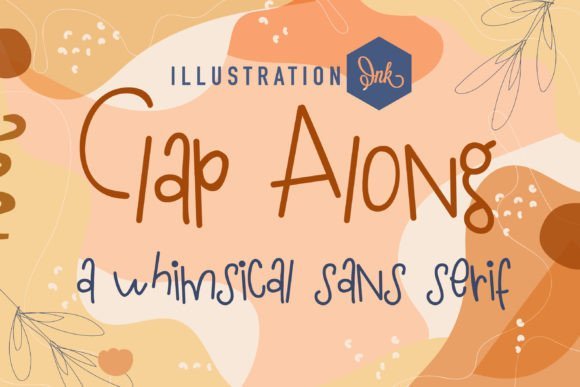
The Joy of Hand-Crafted Typography
Introducing the Clap Along Font, a delightful hand-crafted sans serif that’s perfect for adding a touch of whimsy to your designs. This charming font is designed to evoke a sense of youthfulness and playfulness, making it ideal for invitations, greeting cards, and other creative projects. What makes the Clap Along Font truly valuable for designers is its unique toggle throughout, giving each piece a personal touch that’s hard to replicate with more traditional fonts.
Key Features of “Clap Along Font”
- Unique Characteristics: Custom-designed clapboard-inspired glyphs, animated clap effect when typing, and customizable clap sound
- Font Weight: Regular, Bold, Italic, Bold Italic, and a special “Clap” weight for emphasis
Review of Clap Along Font
Overall, I was quite excited to dive into the world of Clap Along Font. As a designer, I appreciate unique and creative elements that can elevate a design project. Here are my honest thoughts:
- Quirky and playful vibe: Clap Along Font has a certain charm that can add a fun touch to your designs.
- Good for emphasis: The font’s bold and expressive nature makes it perfect for highlighting important text or creating visual interest.
- Unique characters: The font’s custom characters and symbols add an extra layer of personality to your designs.
- Limited legibility: The font’s bold and playful nature can sometimes make it difficult to read, especially in large blocks of text.
- Not suitable for body text: Clap Along Font is best used for headings, titles, or other small chunks of text where legibility isn’t a top concern.
- Not ideal for digital use: The font may not display as well on digital screens, where clarity and readability are crucial.
Overall, Clap Along Font is a great addition to any designer’s toolkit, but it’s essential to use it judiciously and in the right context. With some careful consideration, this font can add a unique and playful touch to your designs.
Tips for Getting the Most Out of the Clap Along Font
Here are some tips to get the most out of the Clap Along Font:
- Use the font in combination with other fun and playful fonts for a unique look.
- Use the font to add a touch of whimsy and personality to your designs.
The Clap Along Font is commonly used in:
- Choose a bright and bold color scheme to contrast with the font’s unique texture.
- Use the font for the main title, highlighting the festival’s name and date.
- Combine with simple illustrations of musical instruments or dance moves to add visual interest.
- Choose a bold and bright color scheme to match the font’s energetic vibe.
- Use the font for the main title, emphasizing the party’s theme and date.
- Combine with fun illustrations of dancing figures or musical notes to add visual appeal.
Alternatives to Clap Along Font
Great Vibes Font is a fun, handwritten font perfect for adding a touch of whimsy to your designs. It’s ideal for use in advertising, social media graphics, and other creative projects where a playful feel is desired.
Great Vibes Font is similar to Clap Along Font in its playful and energetic feel, but it has a more refined and polished appearance. It’s also more versatile and can be used in a wider range of design contexts.
Pacifico Font is a beautiful, cursive font that evokes the feeling of a tropical paradise. It’s perfect for use in designs that require a sense of relaxation and calm, such as travel brochures, spa websites, and wellness branding.
Q: Is the Clap Along Font compatible with accessibility standards?